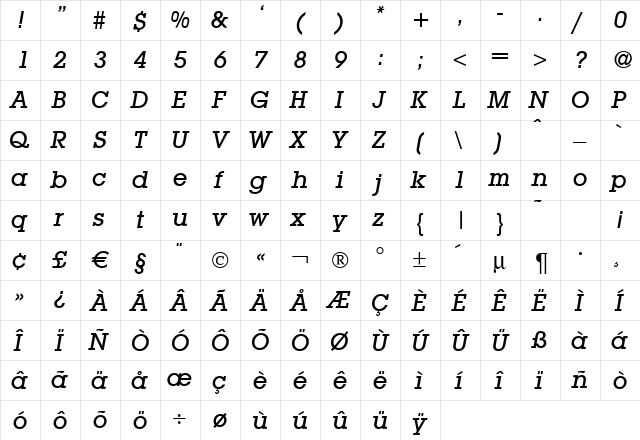
L850-Slab-Medium Italic
Design Context for L850-Slab-Medium Typeface
L850-Slab-Medium features prominent, blocky serifs that give it a confident, grounded presence — equally at home in editorial settings and bold branding work. The slanted form adds forward momentum and visual energy.
Works well in editorial design, news publishing, impactful branding, and poster typography.
Pro Tip: Try L850-Slab-Medium set tight in headlines for a classic editorial feel. Its slab serifs create strong horizontal rhythm that anchors a page layout.